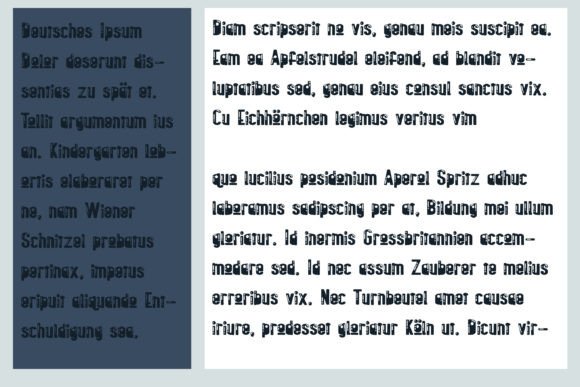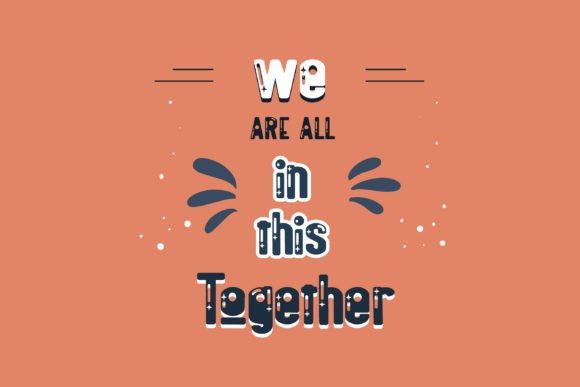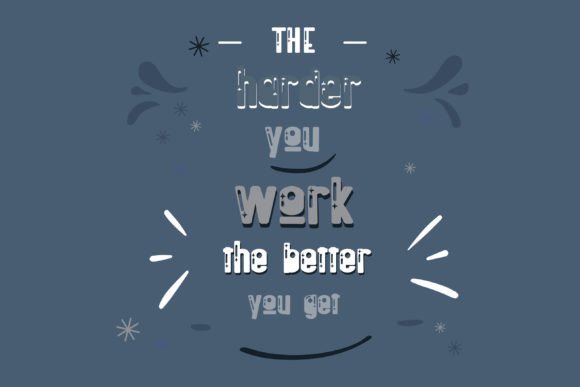
Husking Font
This hand-crafted sans serif is boxy, squat, and whimsical.Highlighted version included.A hand-crafted font is a font that is designed to look like it was written by hand. It is often used for invitations, greeting cards, and other items. Handwritten fonts can be either formal or informal, and they can be used for a variety of purposes.